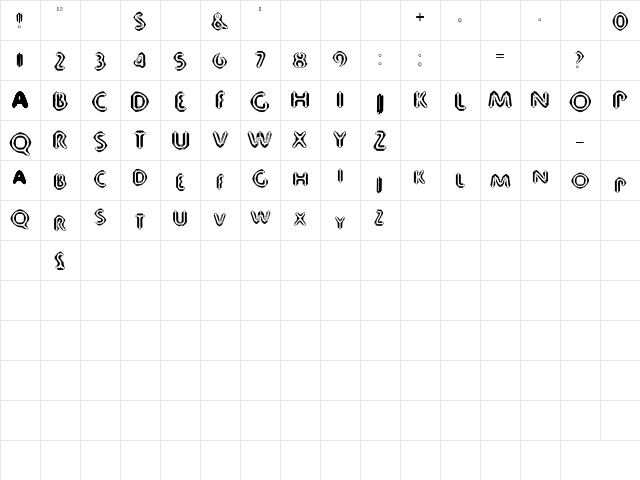
80 Decibels Regular
Design Context for 80 Decibels
80 Decibels is a composed and adaptable typeface that performs quietly and consistently across a wide range of design contexts.